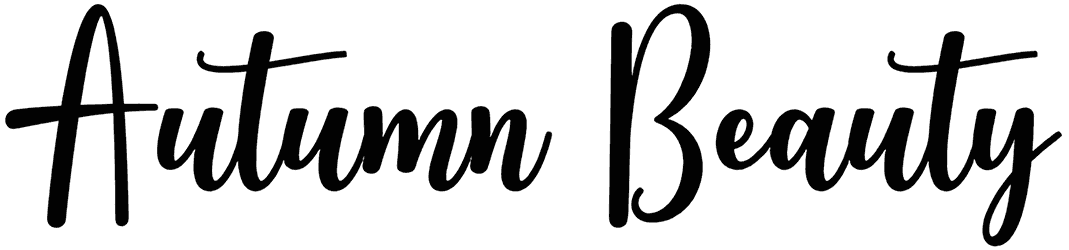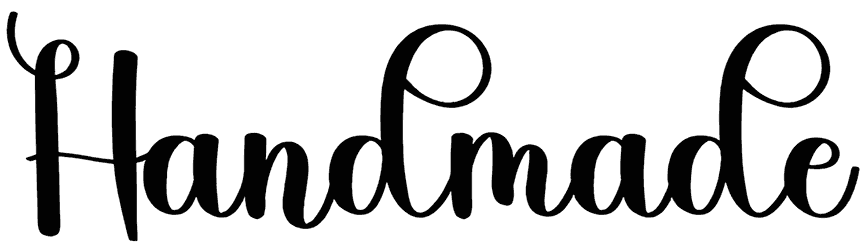
Britney Valentine Font
If you are a big fan of calligraphy fonts, you can’t go wrong with Britney Valentine at all. This font appears in medium and crispy characters and can be an amazing host for various content needs like posters, apparel, cards, etc. It brings a smooth vibe to your text layout. To get more of this category, don’t forget to come and visit our boundless library!
Designed by: Noftanti Studio